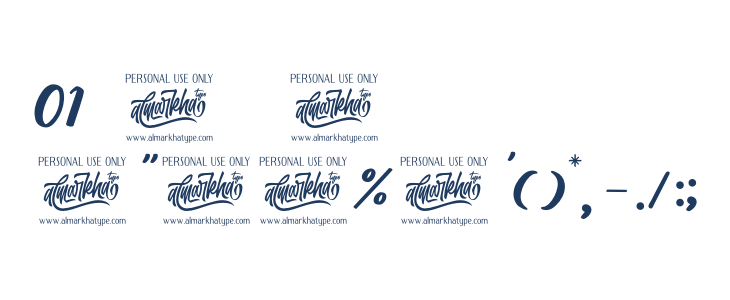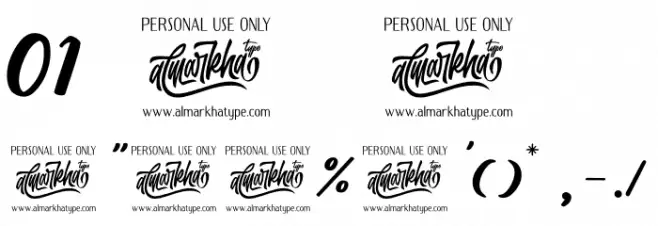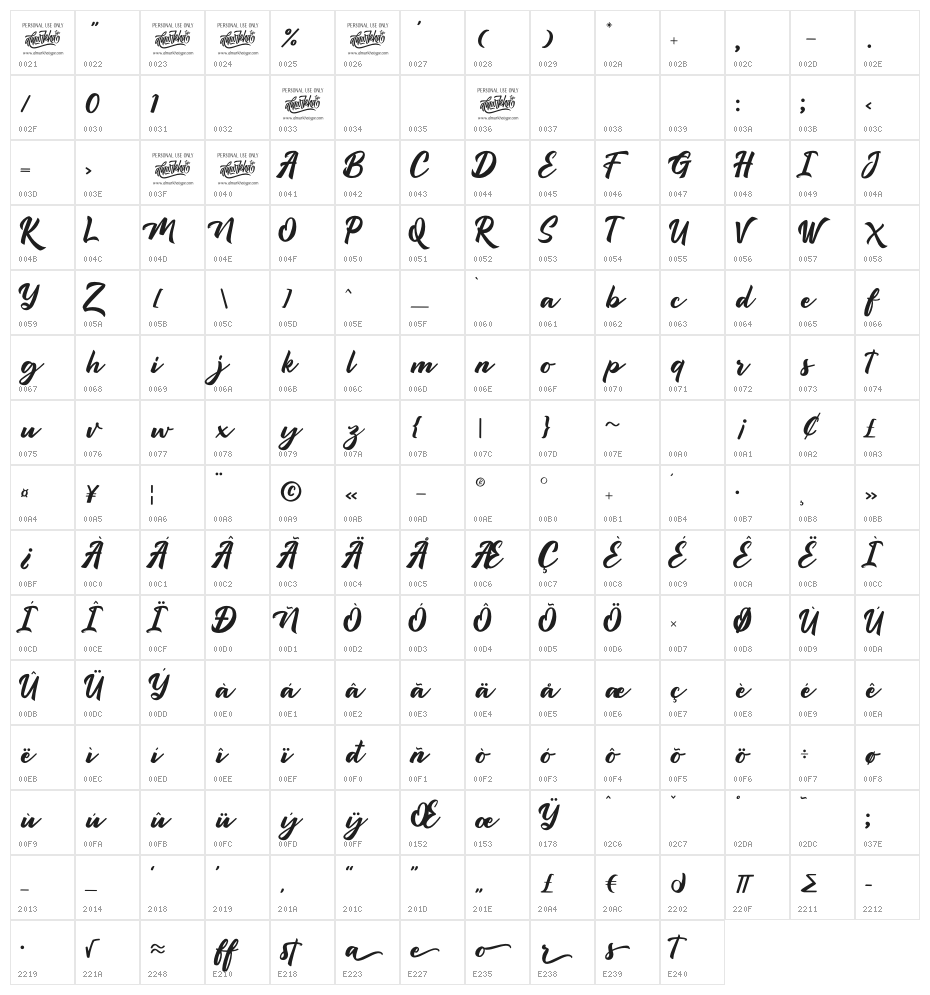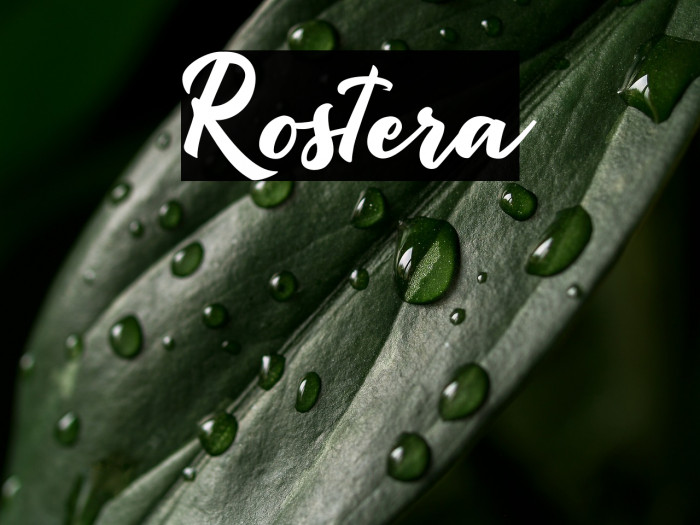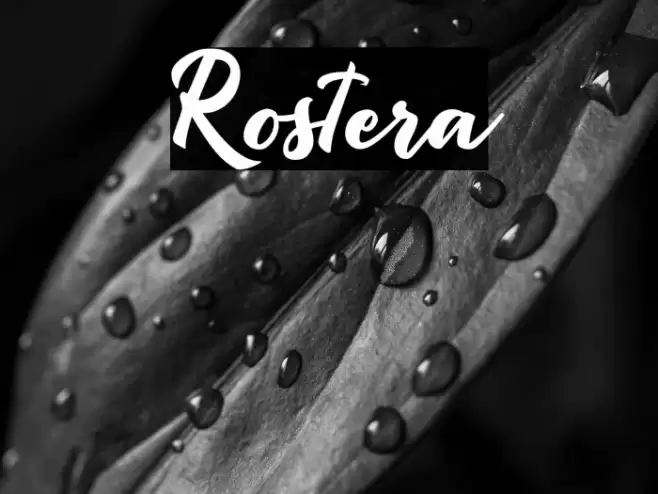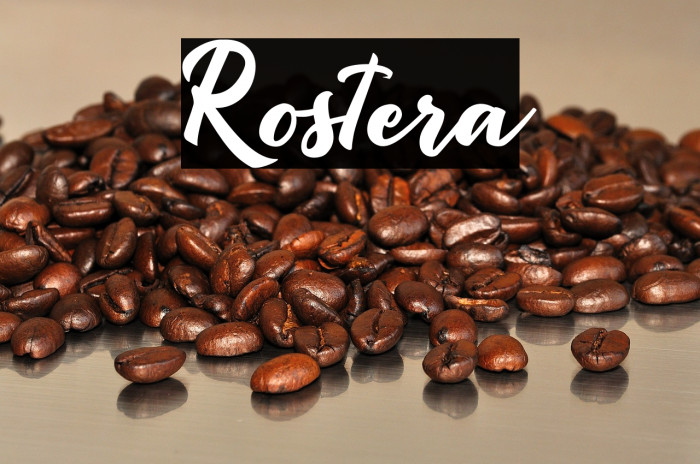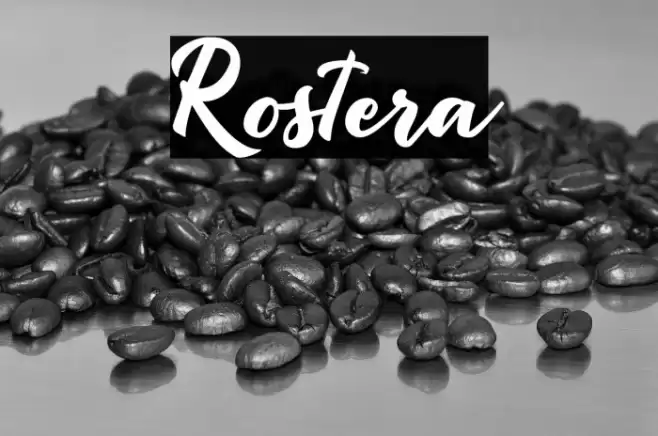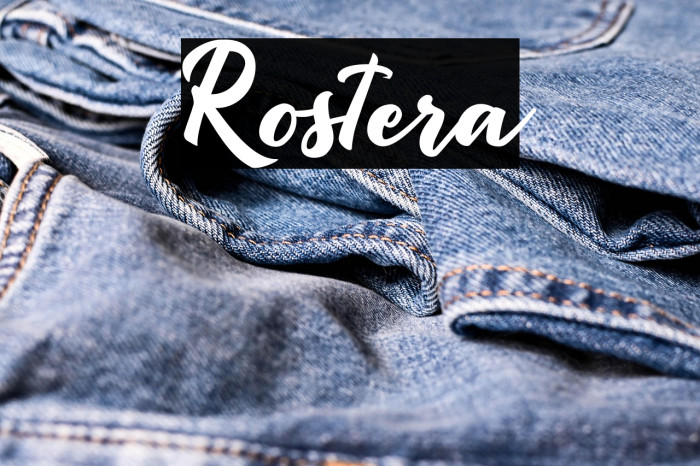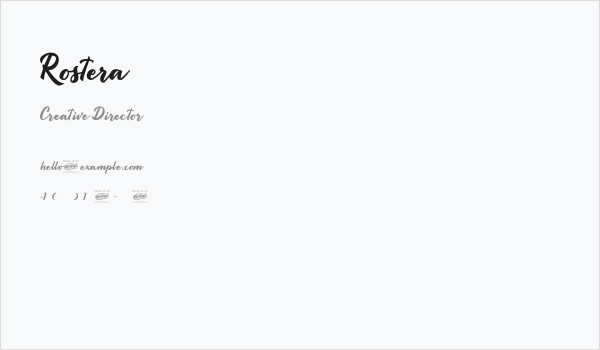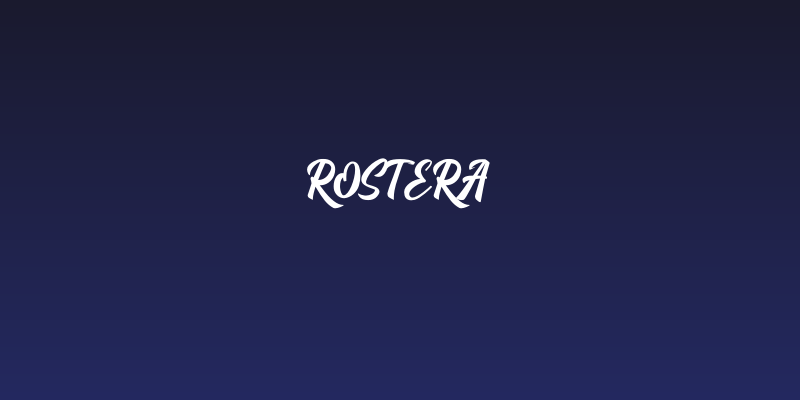
Rostera Font
Rostera Description
This font features a bold, expressive script style with a dynamic flow and a sense of movement. The uppercase letters are characterized by sweeping curves and dramatic flourishes, while the lowercase letters maintain a consistent rhythm with elegant loops and connections. The font exudes a sense of creativity and artistic flair, making it ideal for projects that require a personal touch. The numbers and special characters are crafted with the same attention to detail, ensuring a cohesive look across all elements. The overall design is both modern and timeless, offering versatility for various design applications.